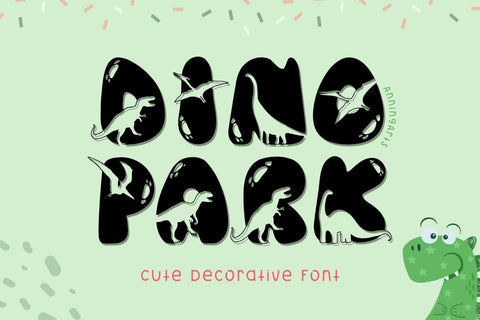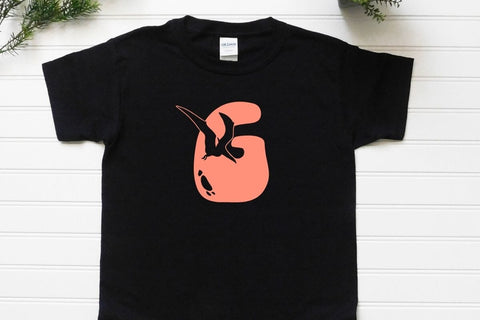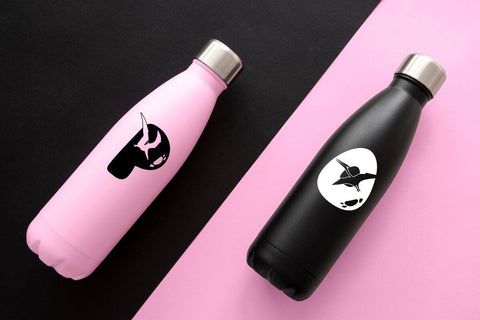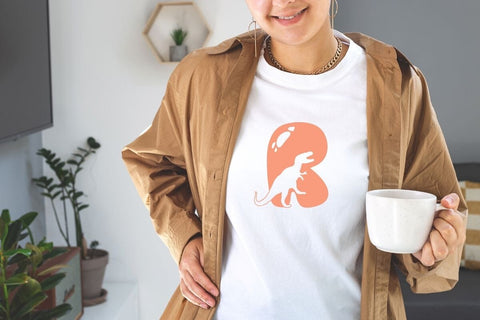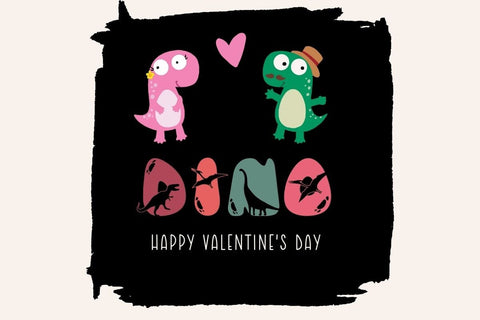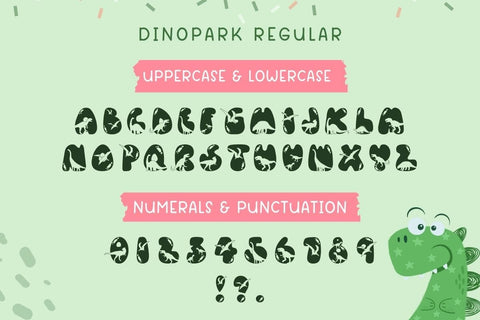
Dinopark - Decorative Font
Dinopark is a charming decorative font suitable for a variety of designs, including banners, mugs, cards, shirts, and social media posts.